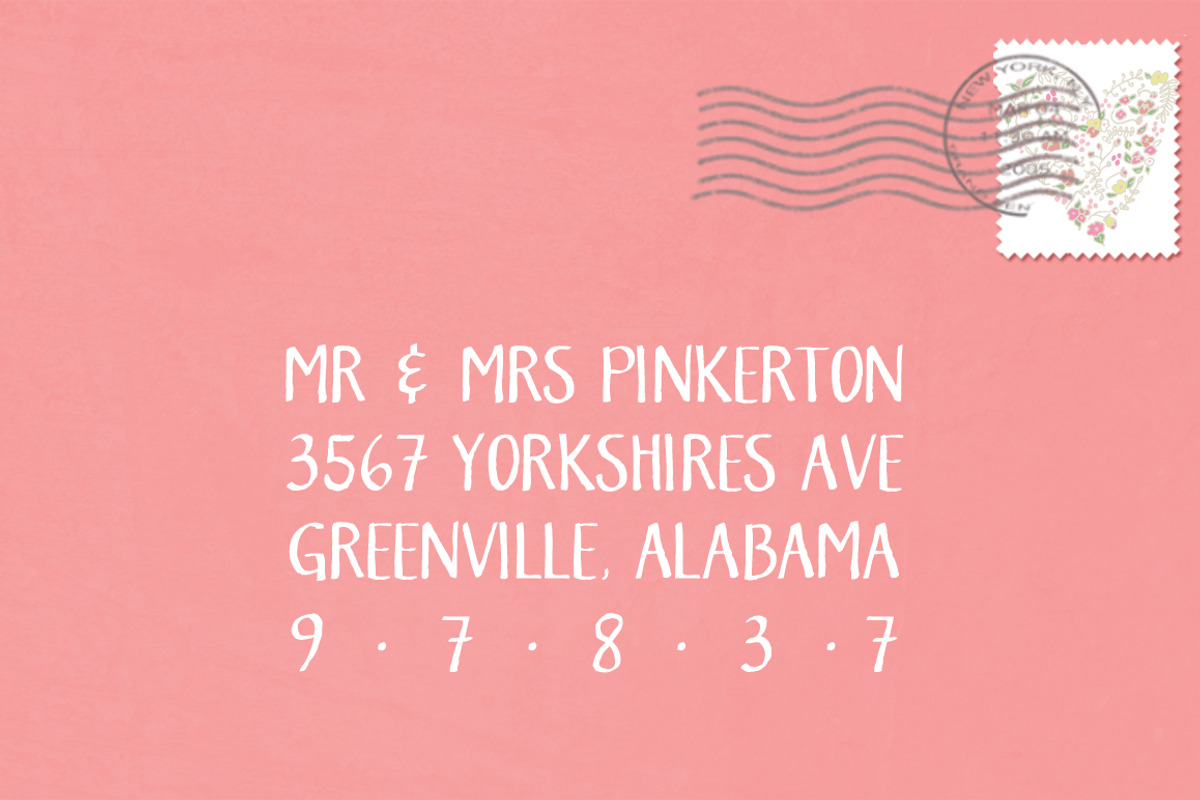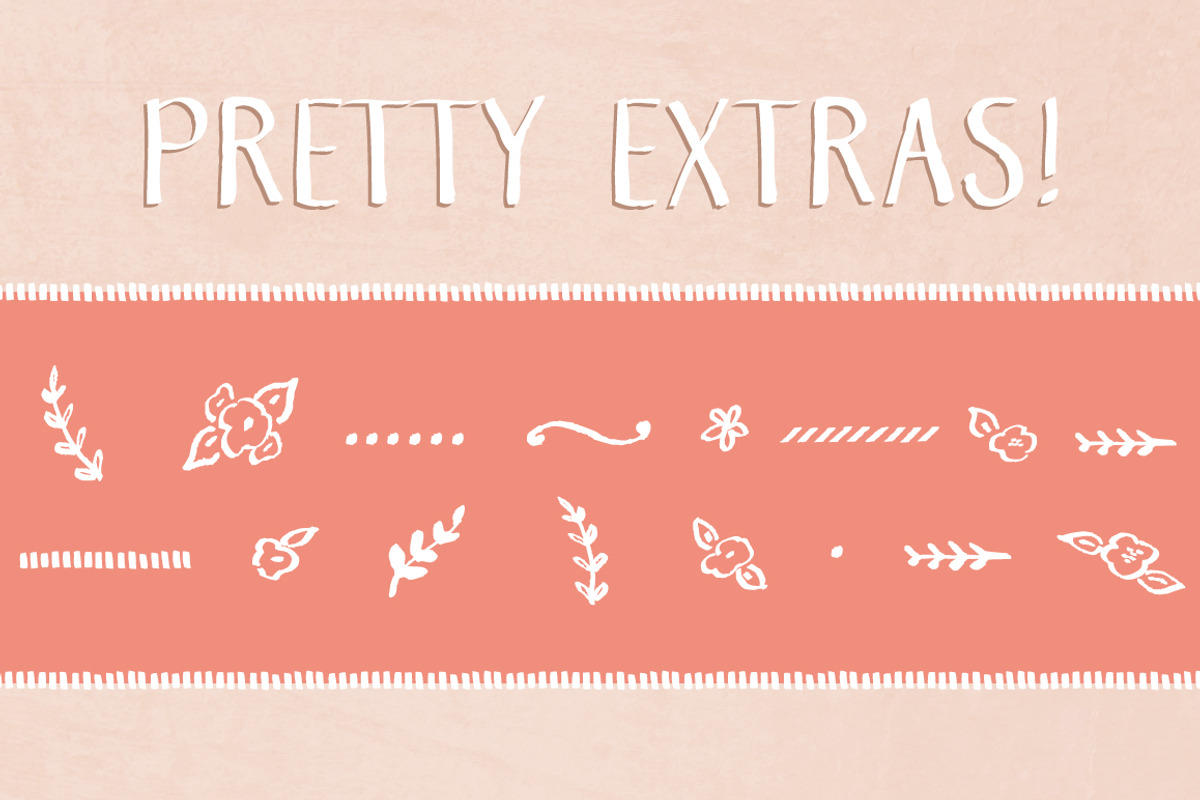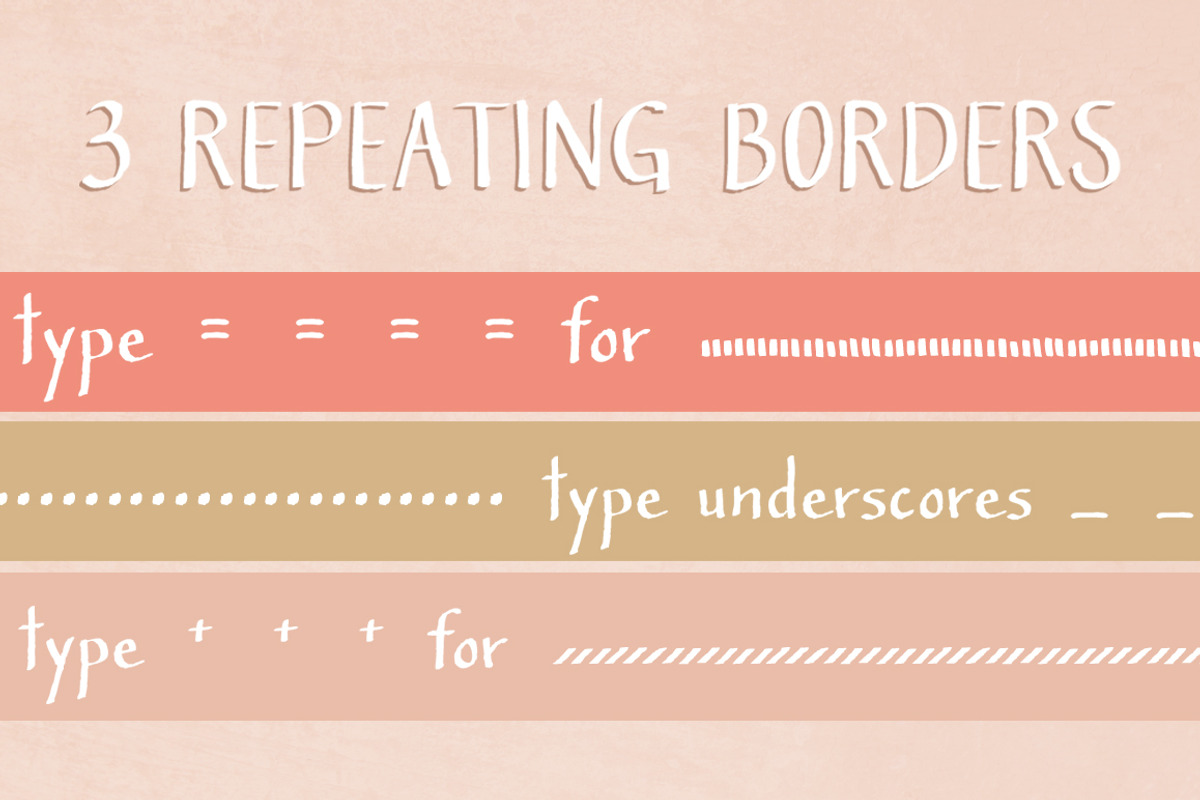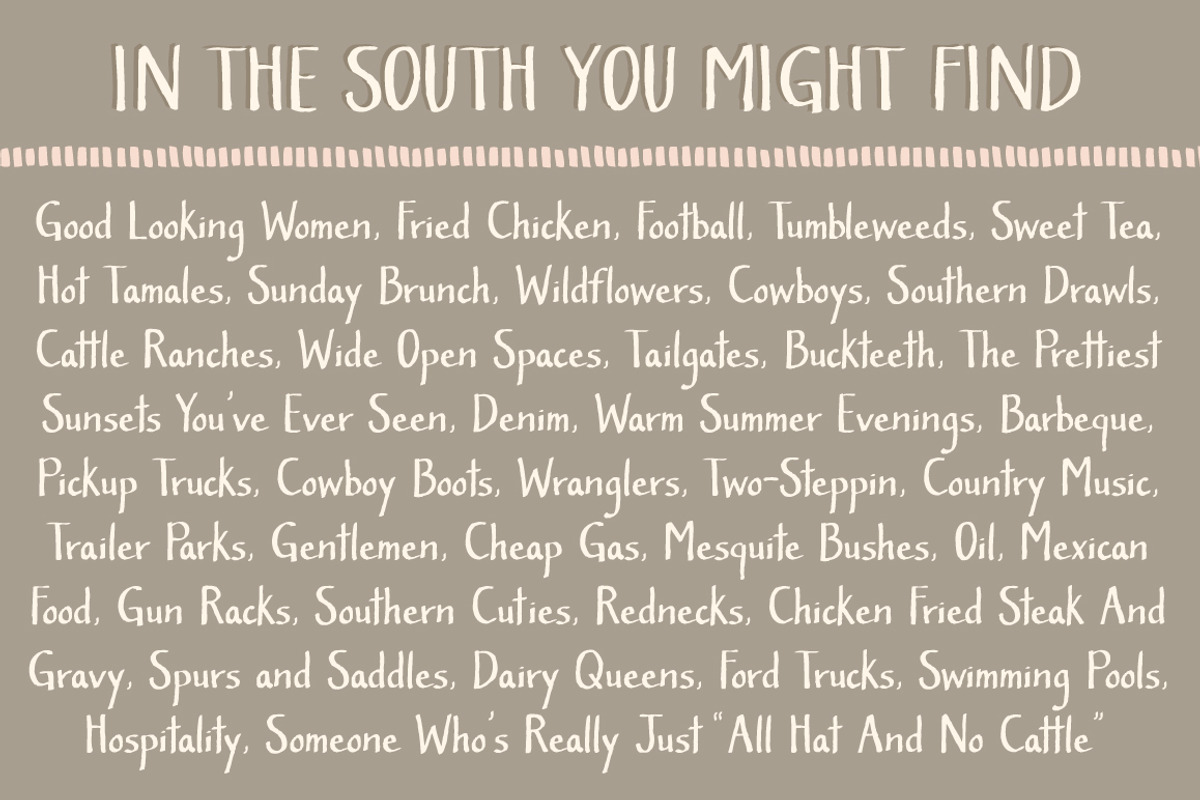
Southern Belle- A Cute Handmade Font
Southern Belle- A Cute Handmade Font by Angie Makes is a font selected for branding, posters, packaging, typography.
- Its uppercase letterforms would be a great fit for logos, envelope addresses, and more!
Why Southern Belle- A Cute Handmade Font is worth a look
Southern Belle- A Cute Handmade Font by Angie Makes fits naturally into Branding, posters, packaging, typography.